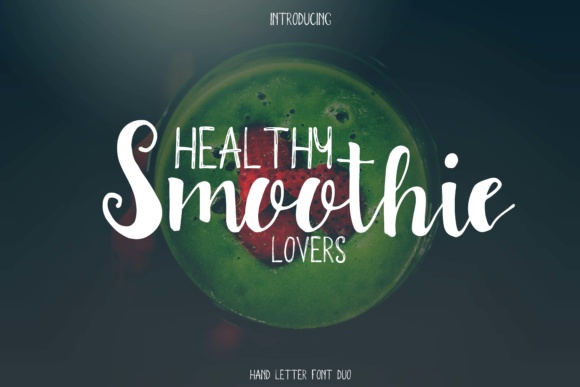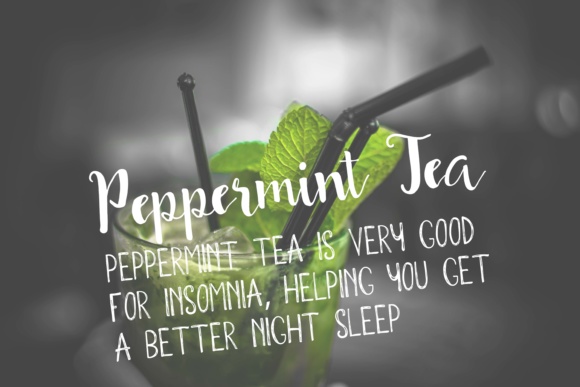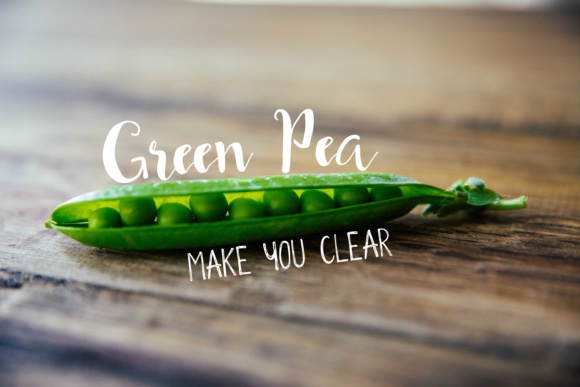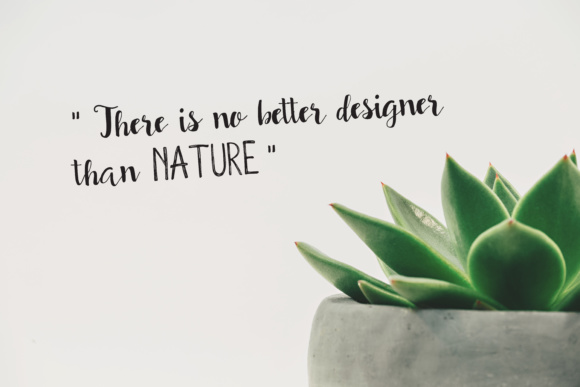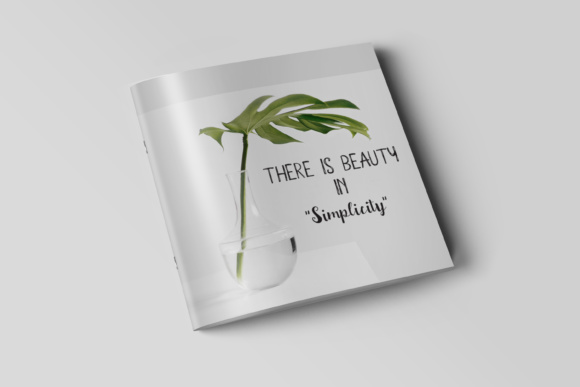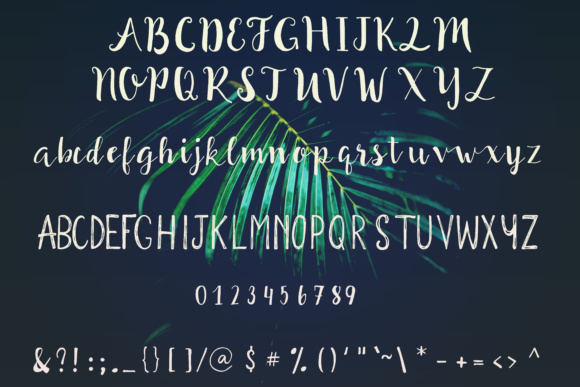
Smoothies Font
About Smoothies Font
The Smoothies is a hand brushed typeface. It comes in a regular and bold version which gives you the opportunity to create multiple unique designs with just this one pack.